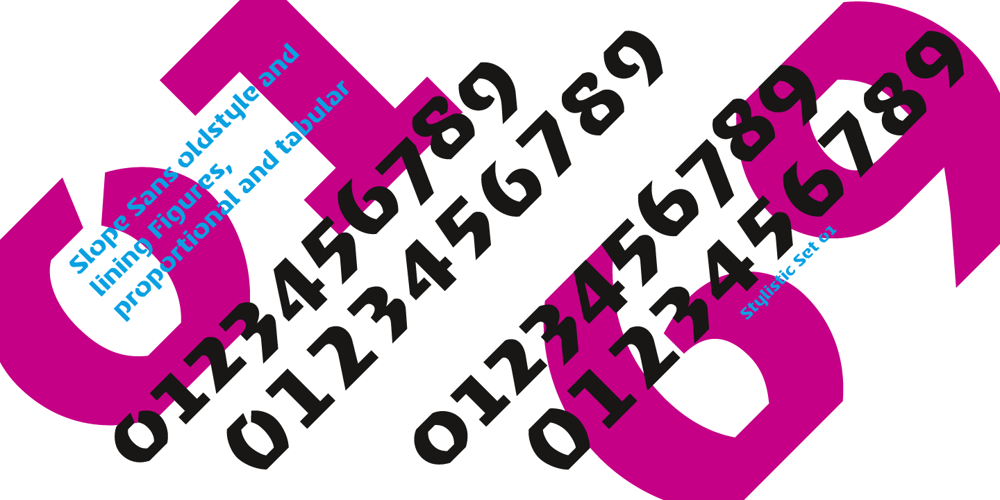
Slope Sans Pro Font Family was designed by Hans Schumacher and published by URW Type Foundry. Slope Sans Pro contains 1 styles and family package options. Slope Sans is an original design that combines a technological shape model borrowed from the early Macintosh system fonts with organic, open elements looking futuristic in a retrospective manner. Designed as part of a font family without different weights, Slope Sans Pro provides OpenType features for alternate letter forms in two stylistic sets. The basic version works similar to a stencil font, an alternative set has consistently closed shapes and a more rigid appearance, while the second stylistic set offers some alternative letter forms. Headlines and shorter texts set in Slope Sans provide a variable, modern appearance. Slope Slab Pro goes very well with Slope Sans Pro and can be used as style variant or display.